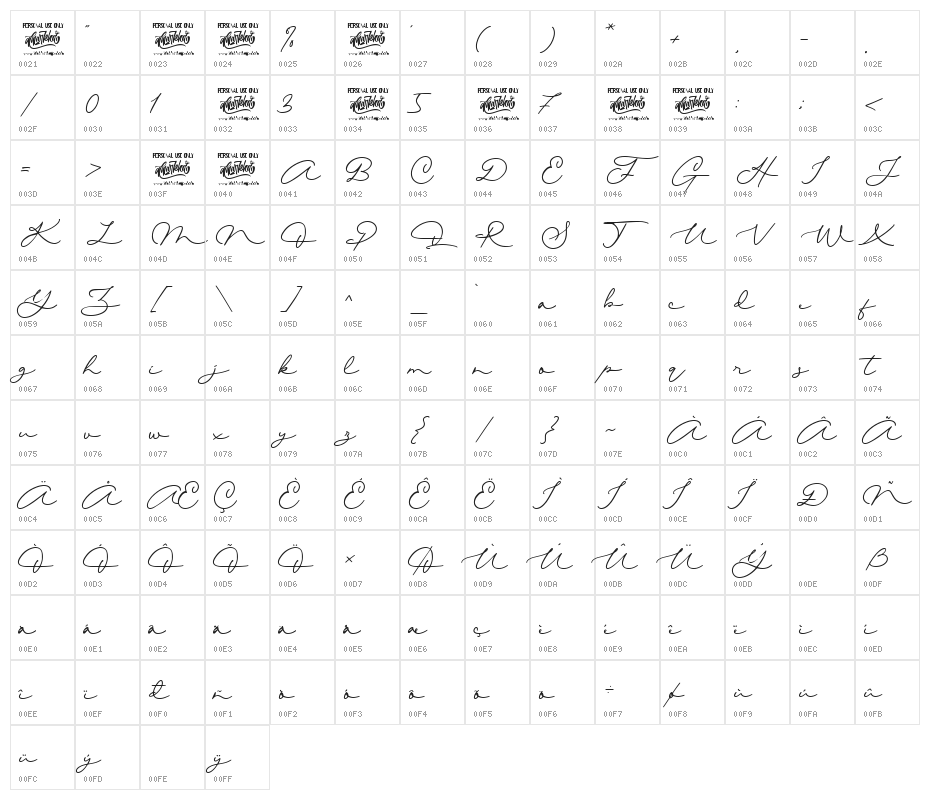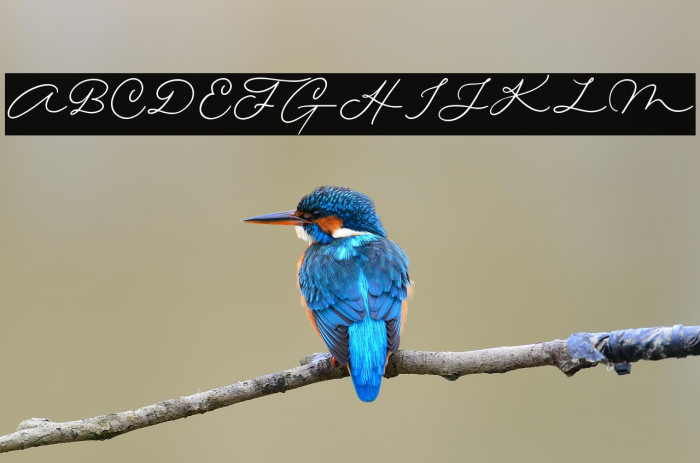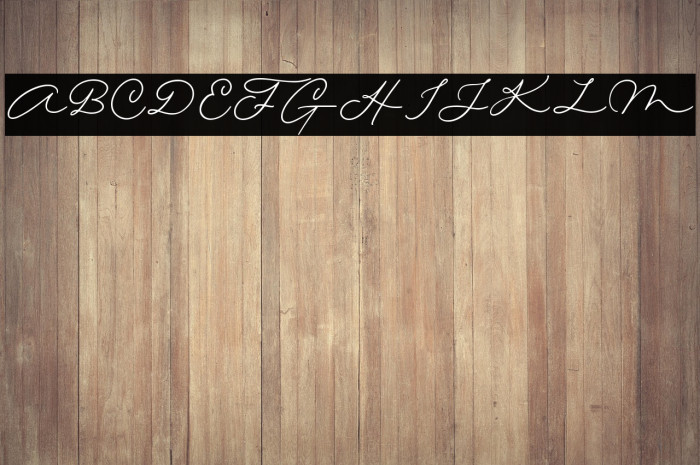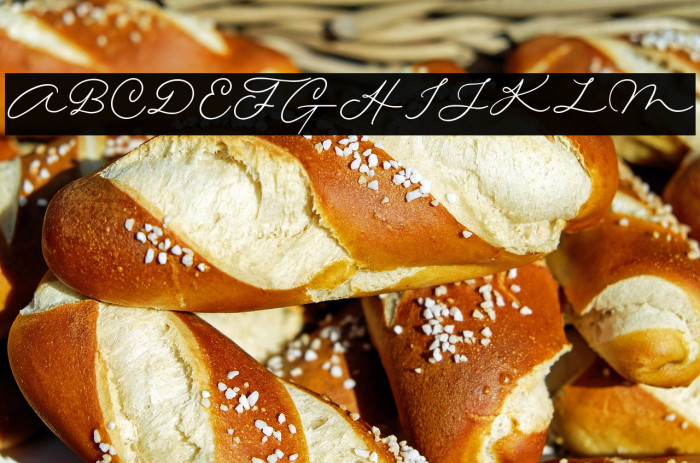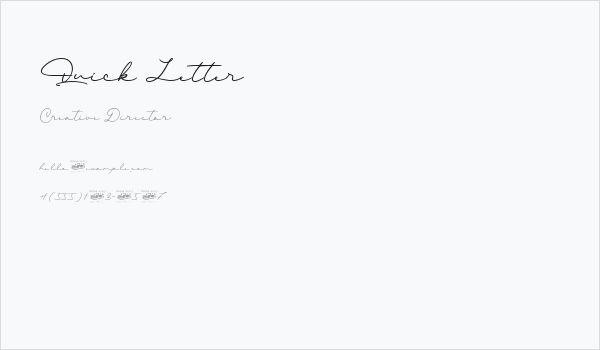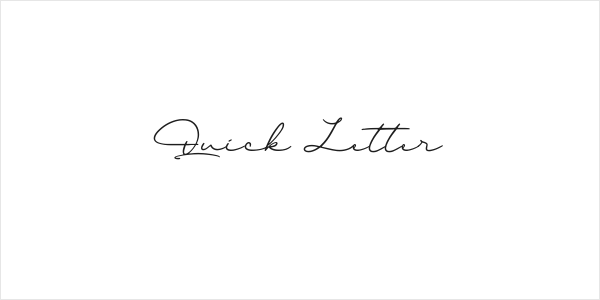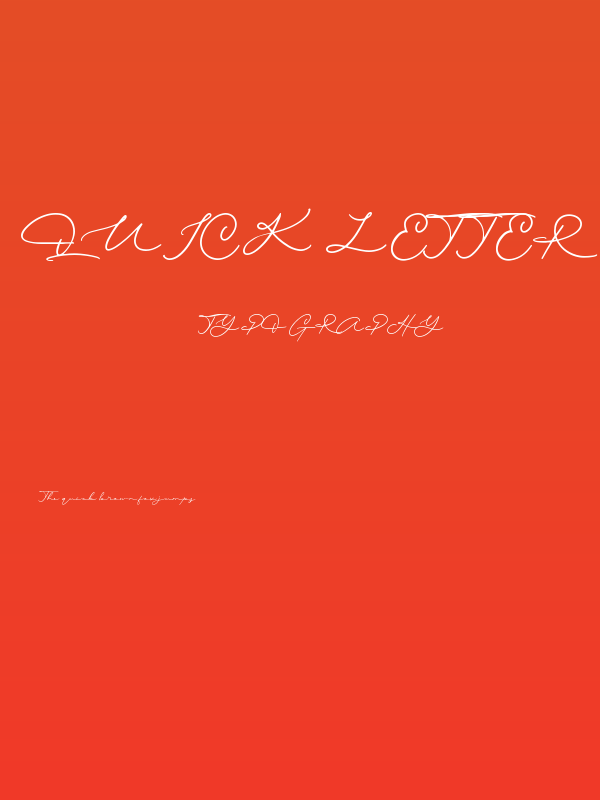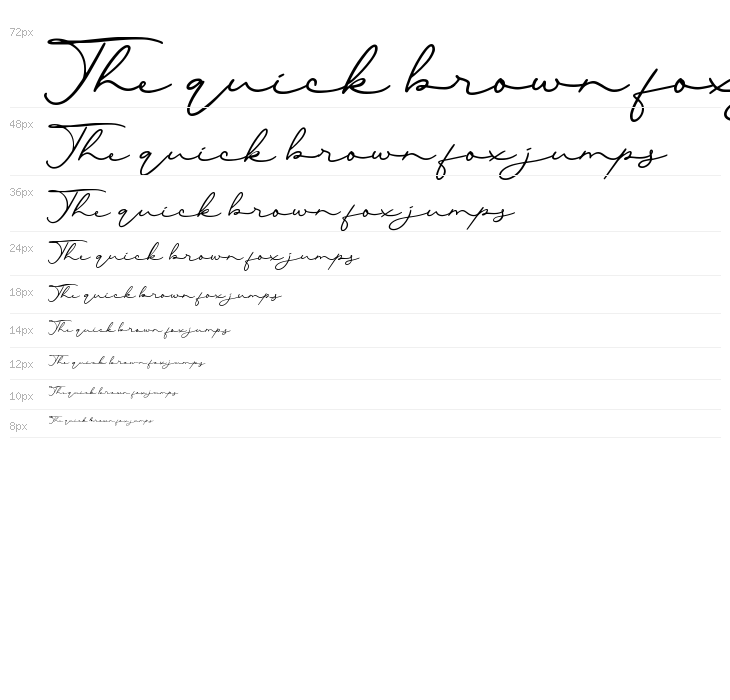
Quick Letter Font
Quick Letter Description
This elegant script font features fluid, cursive strokes that emulate the look of traditional handwriting. The uppercase letters are gracefully connected, while the lowercase letters maintain a consistent flow, enhancing readability. The numerals and special characters are designed with the same attention to detail, providing a cohesive look across all glyphs. The font's delicate lines and smooth curves make it ideal for projects that require a personal touch, such as invitations, greeting cards, and branding materials.